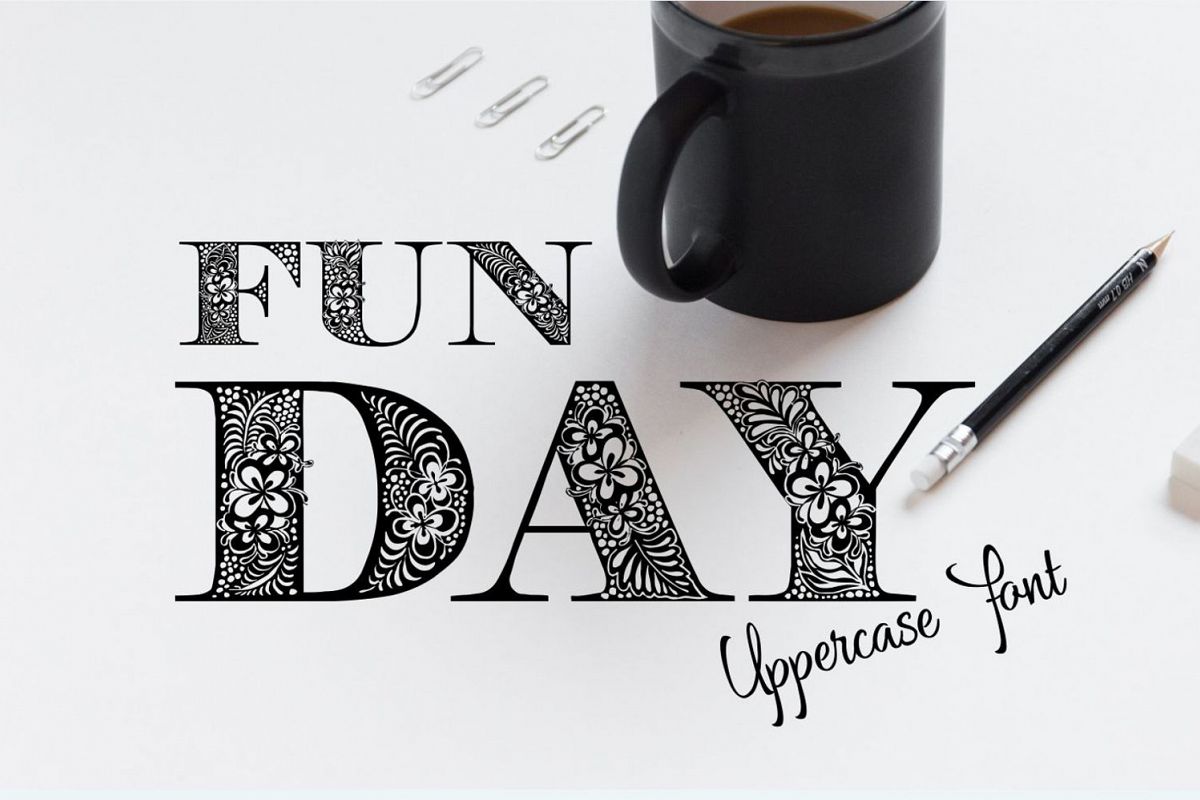
Funday
Funday is a handcrafted, decorative uppercase font that is perfect for giving your crafting projects a ton of texture.
This font is perfect for monogram purposes, and able to give your content a branded look.